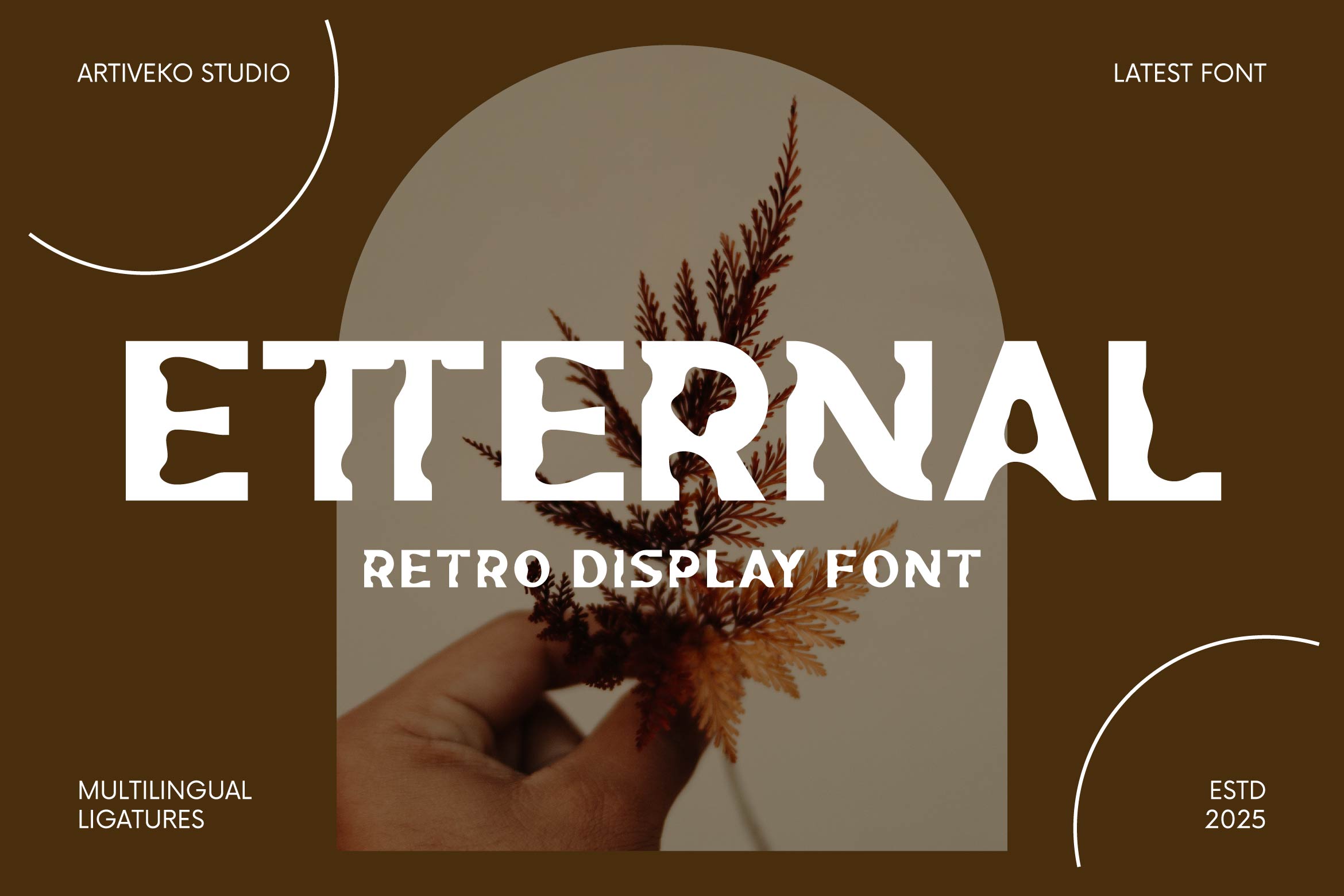
- Etternal Creative Display Typeface
Etternal is a striking and refined display font designed to make your typography stand out with sophistication and style. Featuring sharp details, graceful curves, and balanced proportions, Etternal is perfect for luxury branding, editorial headlines, magazine covers, packaging, invitations, and upscale logo designs.
Its elegant yet modern character brings a high-end, professional touch to any project, making it ideal for designers who seek both impact and refinement in their typography. Etternal shines in large-scale designs, delivering clarity and beauty in every letter.
The font includes uppercase and lowercase letters, numerals, punctuation, multilingual support, ligatures, and stylistic alternates for versatile customization.
Create timeless and memorable designs with Etternal — the display font that blends modern aesthetics, elegance, and bold sophistication.